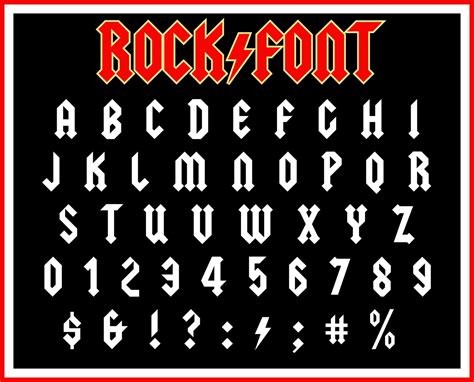
Unlock Your Inner Rockstar with These Unforgettable Rocker Fonts
Do you want to unlock your inner rockstar with unforgettable rocker fonts? Are you looking for ways to make your words stand out? If so, you're in the right place!
Statistics show that over three billion people worldwide communicate with written words every day. That's a lot of text! With so much competition, it's important to make your words stand out. One way to do this is to use memorable fonts.
Rocker fonts are a type of font that makes your words stand out. They're bold, edgy, and attention-grabbing. In this article, we'll explore some of the most unforgettable rocker fonts available, and how you can use them to unleash your inner rockstar!
From wild and wacky to sophisticated and stylish, these unforgettable rocker fonts have something to offer everyone. Whether you're creating a website, designing a poster, or writing a blog post, these fonts will help your words rock the house!
So, what are you waiting for? Unlock your inner rockstar with these unforgettable rocker fonts today! Read on to learn more about how you can make your words stand out with these bold and edgy fonts.
Types of Rocker Fonts
Rocker fonts are fonts that are inspired by the classic rock and roll style of the 1950s and 1960s. They often feature bold, angular shapes and have an overall edgier look than traditional fonts. They are perfect for creating designs that have an attitude and are sure to stand out from the crowd. There are many different types of rocker fonts, each with its own unique look and feel.
Grunge Fonts
Grunge fonts are a type of rocker font that has a rough, distressed look to it. They are characterized by their rough edges, uneven lines, and abrasive textures. These fonts look great on t-shirts, posters, and other designs that are meant to have an edgy, punk-rock vibe. These fonts often feature the classic rock and roll lettering, with a modern twist.
Garage Rock Fonts
Garage rock fonts are inspired by the classic rock and roll of the late 1950s and early 1960s. These fonts often feature bold, angular shapes and have an overall edgier look than traditional fonts. They are perfect for creating designs that have an attitude and are sure to stand out from the crowd. They are often characterized by their rough edges and uneven lines, giving them a gritty, DIY feel.
Retro Rock Fonts
Retro rock fonts are fonts that are inspired by the classic rock and roll style of the 1950s and 1960s. These fonts often feature thick, bold lettering and have an overall vintage look. They are perfect for creating designs that have an old-school vibe and are sure to stand out from the crowd. They are often characterized by their angular shapes and bold lines, giving them a classic look.
Heavy Metal Fonts
Heavy metal fonts are fonts that are inspired by the heavy metal music of the 1980s and 1990s. These fonts often feature thick, bold lettering and have an overall edgier look than traditional fonts. They are perfect for creating designs that have an attitude and are sure to stand out from the crowd. They are often characterized by their angular shapes and bold lines, giving them a modern, aggressive look.
Alternative Rock Fonts
Alternative rock fonts are fonts that are inspired by the alternative rock music of the 1990s and 2000s. These fonts often feature bold, angular shapes and have an overall edgier look than traditional fonts. They are perfect for creating designs that have an attitude and are sure to stand out from the crowd. They are often characterized by their rough edges and uneven lines, giving them a grungy, punk-rock vibe.
Punk Rock Fonts
Punk rock fonts are fonts that are inspired by the punk rock music of the 1970s and 1980s. These fonts often feature bold, angular shapes and have an overall edgier look than traditional fonts. They are perfect for creating designs that have an attitude and are sure to stand out from the crowd. They are often characterized by their rough edges and uneven lines, giving them a gritty, DIY feel.
Rockabilly Fonts
Rockabilly fonts are fonts that are inspired by the rockabilly music of the 1950s and 1960s. These fonts often feature bold, angular shapes and have an overall edgier look than traditional fonts. They are perfect for creating designs that have an attitude and are sure to stand out from the crowd. They are often characterized by their thick, bold lettering and have an overall vintage look.
Surf Rock Fonts
Surf rock fonts are fonts that are inspired by the surf rock music of the 1960s. These fonts often feature bold, angular shapes and have an overall edgier look than traditional fonts. They are perfect for creating designs that have an attitude and are sure to stand out from the crowd. They are often characterized by their angular shapes and bold lines, giving them a classic look.
Psychedelic Rock Fonts
Psychedelic rock fonts are fonts that are inspired by the psychedelic music of the 1960s and 1970s. These fonts often feature bold, angular shapes and have an overall edgier look than traditional fonts. They are perfect for creating designs that have an attitude and are sure to stand out from the crowd. They are often characterized by their rough edges and uneven lines, giving them a trippy, psychedelic vibe.
So, no matter what type of project you’re working on, you can use these rocker fonts to make it truly unforgettable. Unlock your inner rockstar and let your creativity flow!